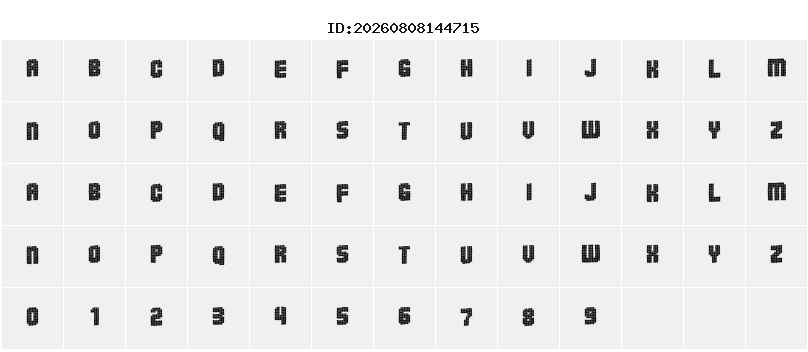
PointerSisters-Freeformed Preview
About PointerSisters-Freeformed.ttf
PointerSisters-Freeformed.ttf is a modern, elegant sans-serif font designed for ultimate readability and visual harmony. Perfect for branding, headlines, web design, and print materials.